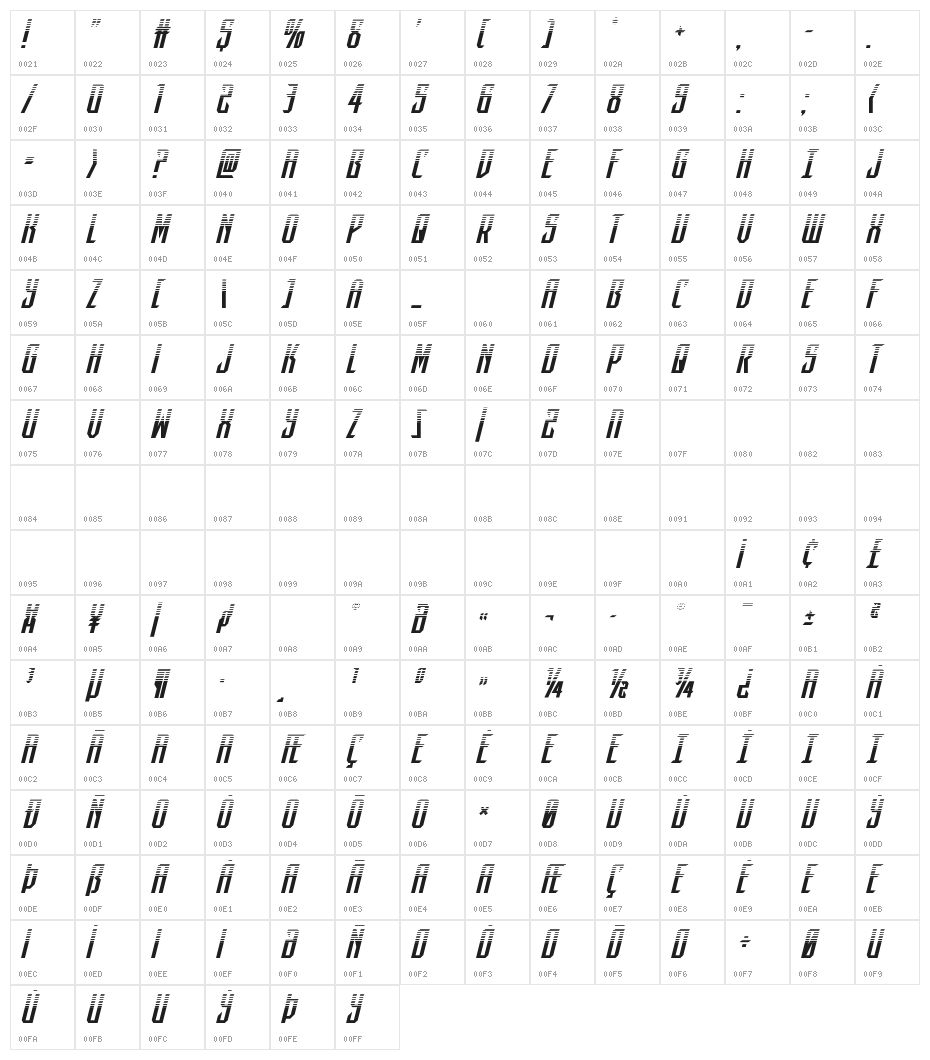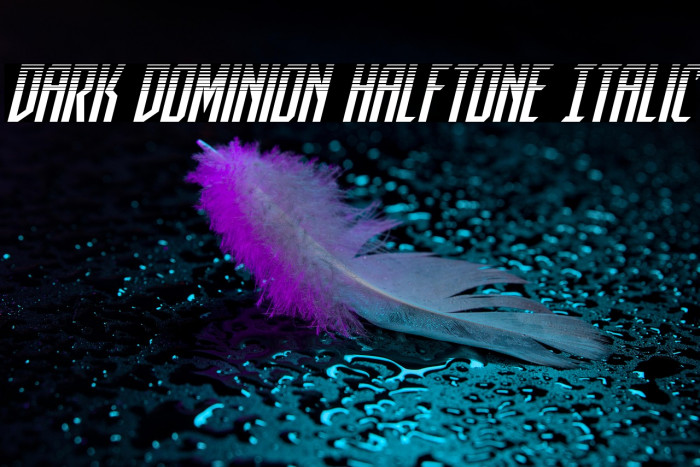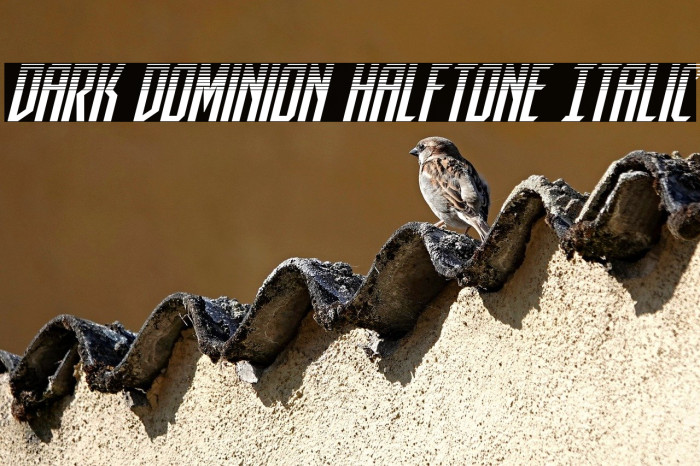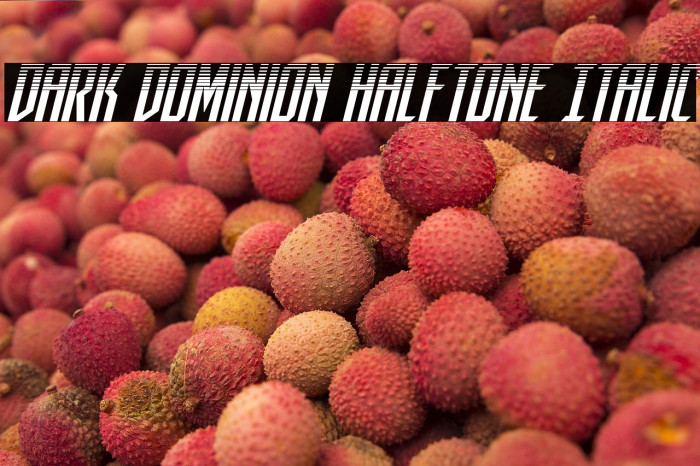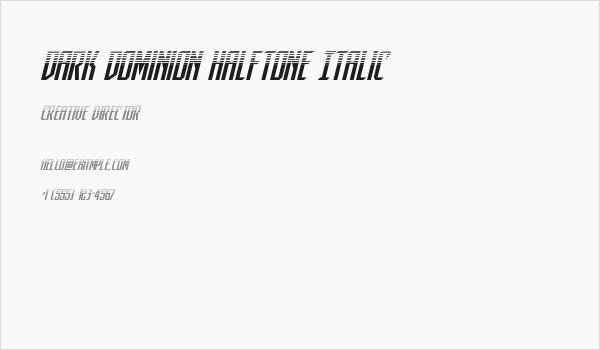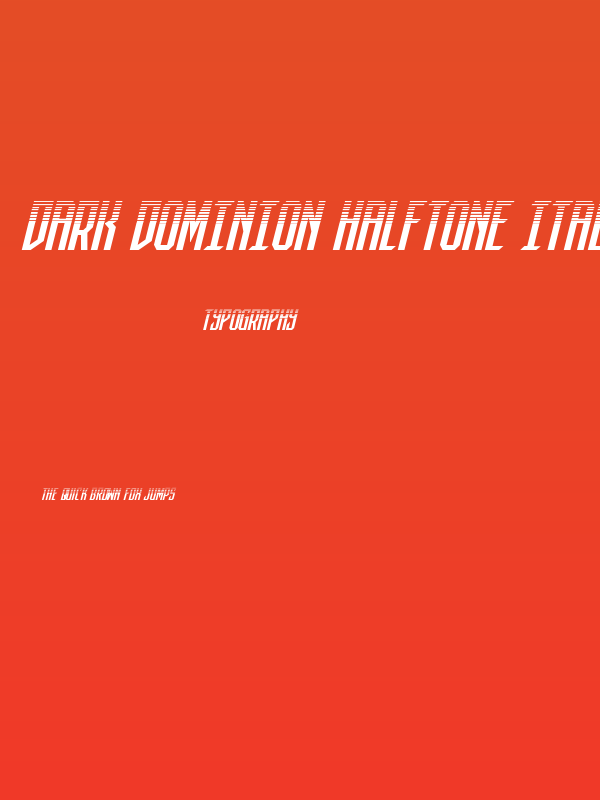
Dark Dominion Halftone Italic Font
Dark Dominion Halftone Italic Description
This font features a bold and dynamic design with a distinct halftone effect that creates a sense of movement and energy. The characters are italicized, adding a forward-leaning, futuristic feel. Each letter is composed of horizontal lines that vary in thickness, contributing to a high-contrast appearance. The font's angular and sharp edges give it a modern and edgy look, making it suitable for attention-grabbing designs. The spacing between characters is relatively tight, enhancing its compact and cohesive style.